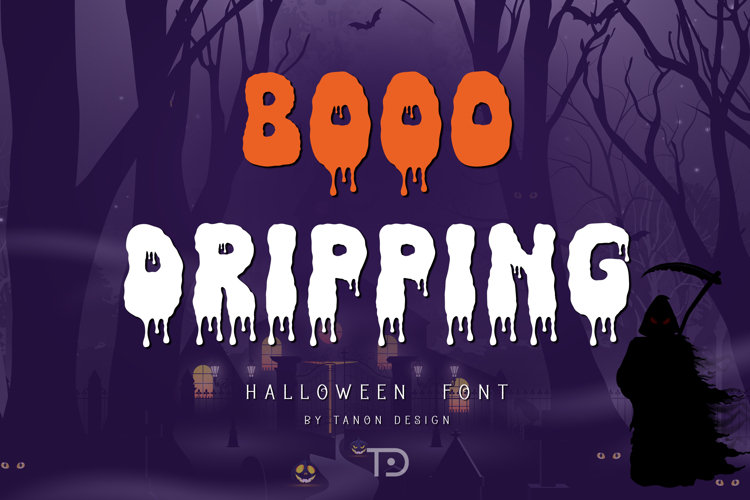
Booo Dripping Font is a Spooky Halloween fonts. It is perfect choice for any project.
Perfect for party invitations, spooky signage, and bewitching crafts.
Let your words cast a bewitching spell this Halloween!
Scary, weird and creepy. It will add a touch of horror to any design project!